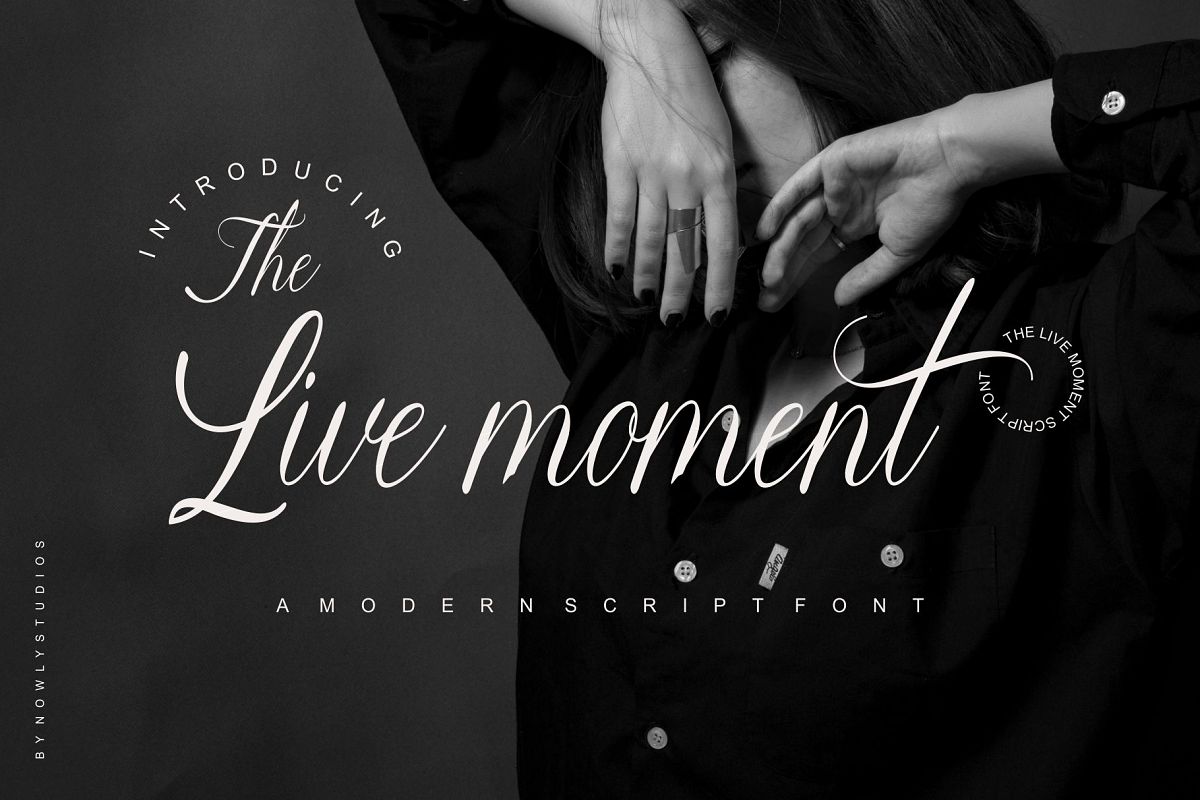
The Live Moment
The Live Moment script
Introducing the new romantic calligraphy font, The Live Moment Script ! The Live Moment Script is perfect for red wine label, vodka
label, wedding stationery, invitations, business cards, branding and other projects that require a touch of handwriting and luxury.
The Live Moment Script includes full set of gorgeous uppercase and lowercase letters, multilingual support, punctuation, ligatures,
alternates, swash ampersand, gorgeous extras from "a'' to "z'' and beginning and ending numerals swashes.